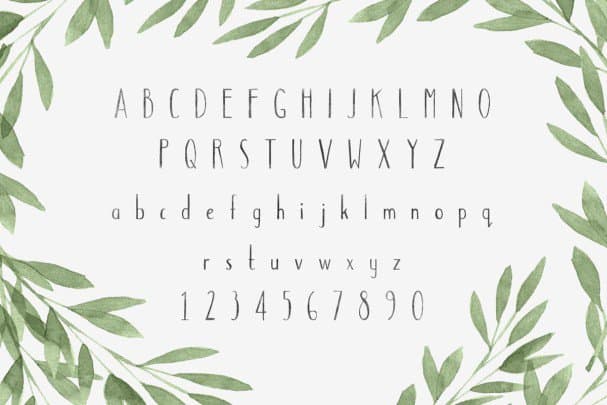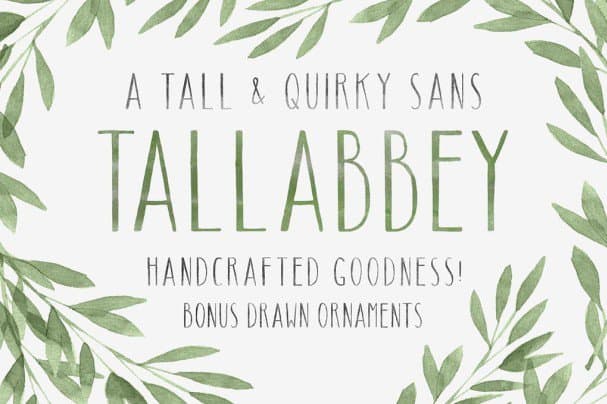
Tall Abbey Sans Font
Tall Abbey Sans Font is the main typeface of mac. That is well-known for its pairing and also for its text generation function and its miles listed inside PowerPoint. The likeness of this font varies amongst experts as some of the rewards it for its right and smooth show, on the identical time as others argue that the spacing among characters is slightly tight. Something more than so that you can simply appearance messy and circus-like.
It’s a stylish free font that abilities a traditional sans serif format. This will be considering the feature versions among designers. Tall Abbey Sans Font Free On the equal time as professionals have an eye fixed steady to every detail this is why they classify and use strike alone font regular with the scope and motive of a project. Reshaped and optimized for the internet, with extra open counters and advanced stems to ensure that bevan offerings as a totally-bold display font that is much like ruth font suit extraordinarily-contemporary browsers.